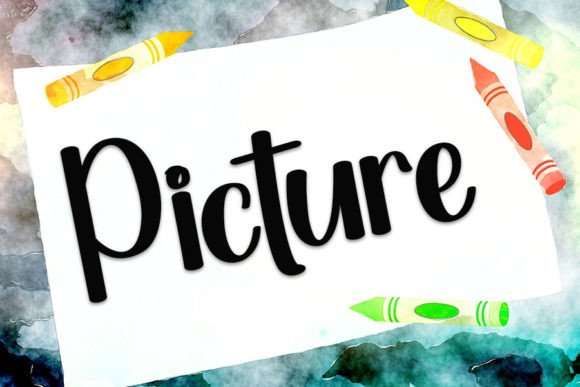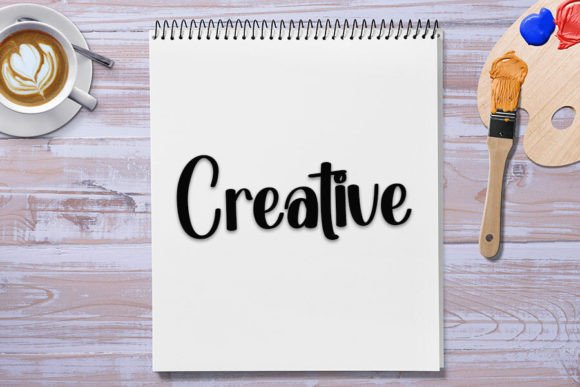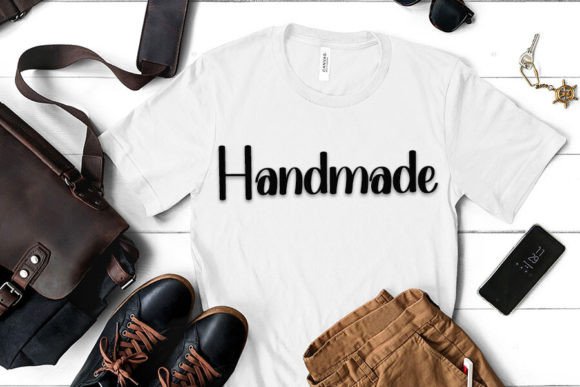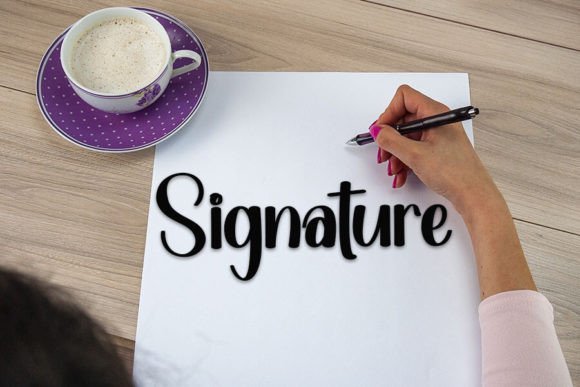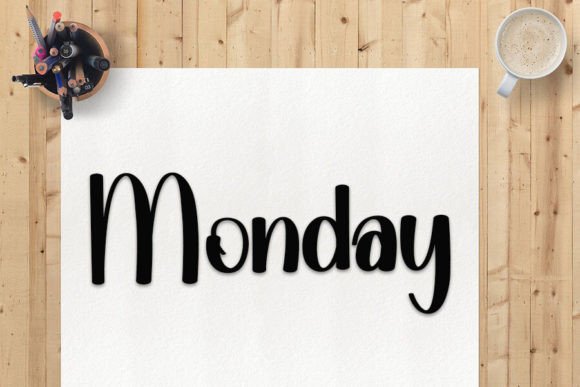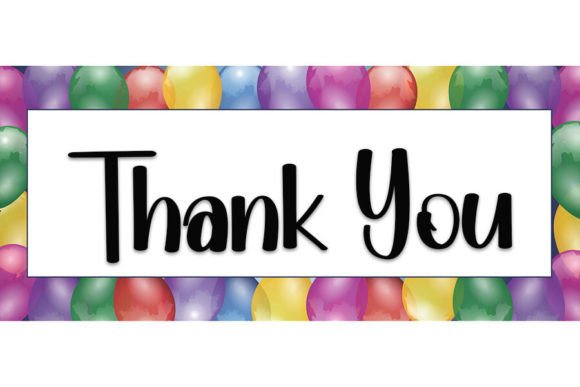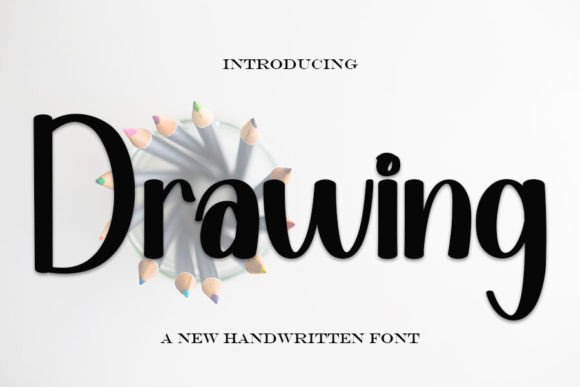
Introducing Drawing Font: Elevate Your Designs with Timeless Elegance
Are you tired of using generic fonts that lack personality and style? Look no further than Drawing Font, a stylish handwritten font that brings a touch of sophistication and contemporary flair to your designs. Inspired by timeless classic calligraphy, Drawing Font is the perfect choice for designers and crafters seeking to add a dash of elegance to their projects.
The Inspiration Behind Drawing Font
Drawing Font is rooted in the rich tradition of calligraphy, with a modern twist that sets it apart from more traditional fonts. The creators of Drawing Font drew inspiration from the classic calligraphic styles of the past, refining and updating the letterforms to create a font that is both nostalgic and fresh. The result is a font that exudes a sense of refinement and poise, perfect for designs that require a touch of sophistication.
Key Features of Drawing Font
So, what sets Drawing Font apart from other fonts? Here are just a few of its key features:
- Contemporary atmosphere and impeccable form: Drawing Font boasts a sleek, modern aesthetic that is balanced and refined, making it perfect for a wide range of design applications.
- Balanced and varied: Drawing Font features a range of letterforms and glyphs, ensuring that your designs always look fresh and interesting.
Why Choose Drawing Font?
There are many reasons why Drawing Font is the perfect choice for designers and crafters. Here are just a few:
- Enhance the beauty of your projects: With its elegant letterforms and refined aesthetic, Drawing Font is the perfect choice for designs that require a touch of sophistication.
- Perfect for a wide range of design applications: Whether you’re working on a logo, brochure, or social media graphics, Drawing Font is versatile enough to handle any design task.
Tips for Using Drawing Font
To get the most out of Drawing Font, here are a few tips to keep in mind:
- Experiment with different sizes and colors: Drawing Font looks great in a variety of sizes and colors, so don’t be afraid to get creative and try out different combinations.
- Pair with other fonts: Drawing Font pairs beautifully with other fonts, so consider combining it with a sans-serif font for added visual interest.
- Use it for headlines and titles: Drawing Font is perfect for headlines and titles, where its elegant letterforms can really shine.
In conclusion, Drawing Font is a stylish handwritten font that brings a touch of timeless elegance to your designs. With its contemporary atmosphere, impeccable form, and PUA encoding, it’s the perfect choice for designers and crafters seeking to add a dash of sophistication to their projects. Whether you’re working on a logo, brochure, or social media graphics, Drawing Font is sure to impress. So why wait? Download Drawing Font today and start elevating your designs to new heights!